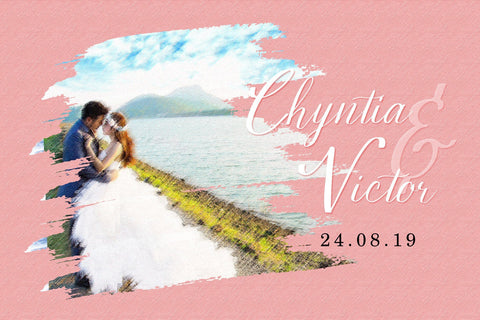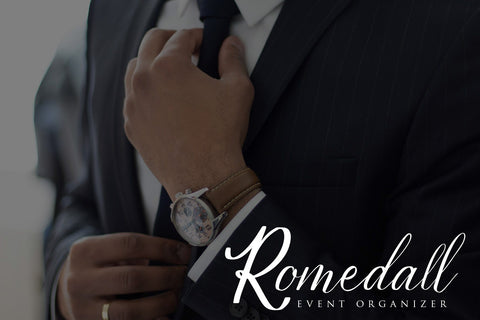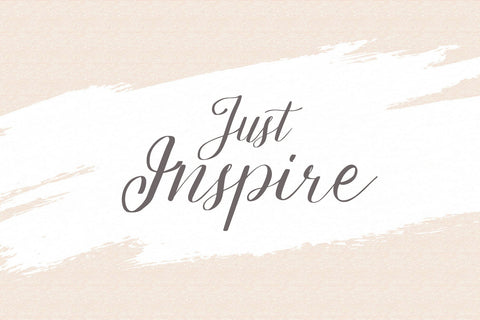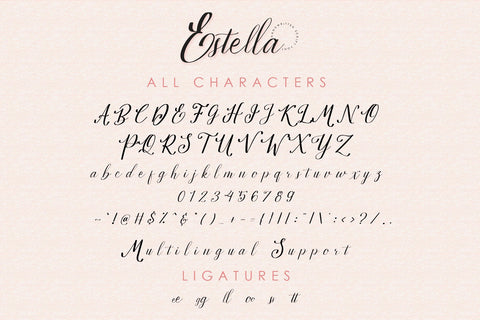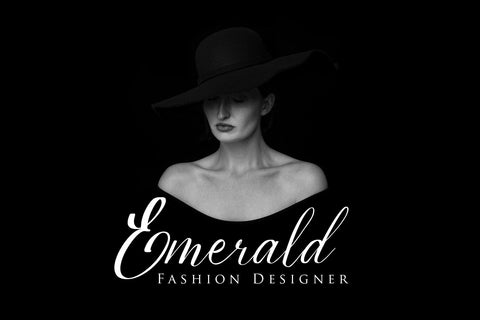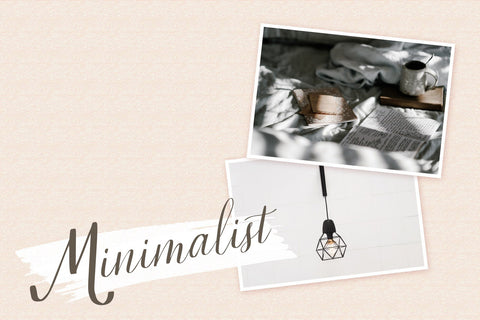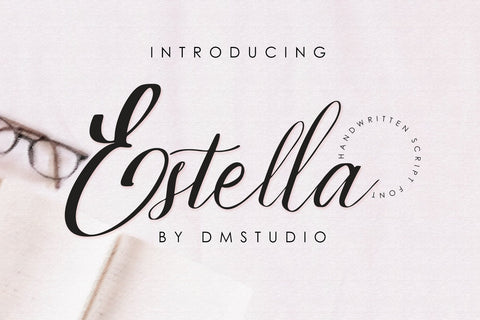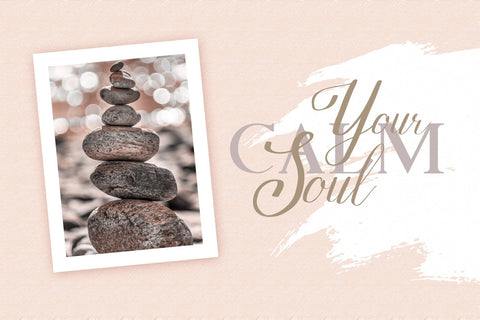
Estella Handwritten Font
Estella the handwritten script font
Great choice and very easy to use for quotes, wedding card, invitation, website, promotion and the other projects.
- Contains uppercase, lowercase, numeric and symbols
- With extra ligatures
- Support multilingual